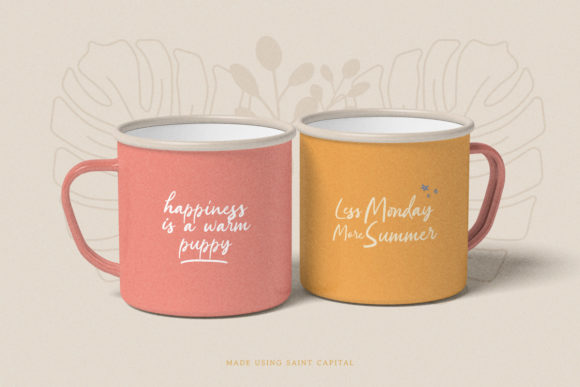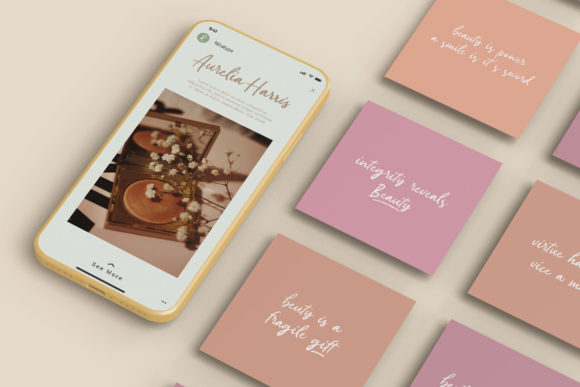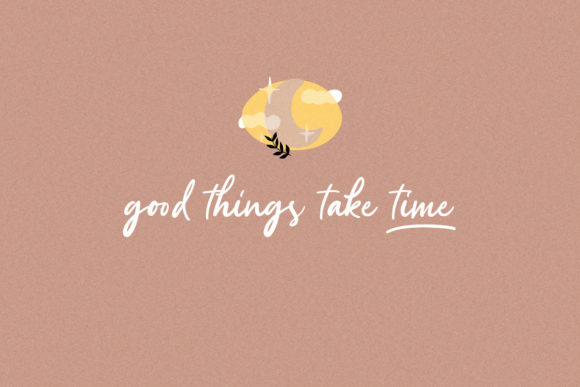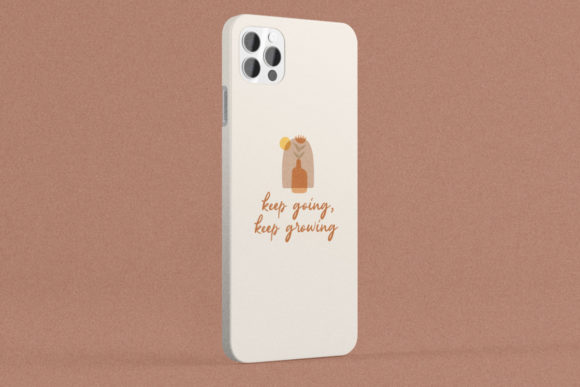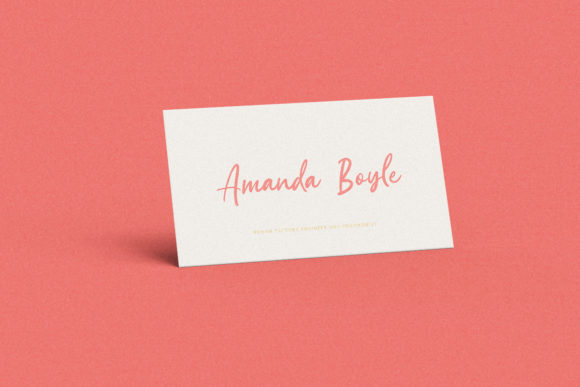
Introduction to Saint Capital Font
Have you ever been in the middle of a creative project, pouring your heart and soul into every detail, and suddenly, the perfect font appears to elevate your design? For designers, finding that one special font can be a game-changer. It’s like stumbling upon a hidden treasure that makes your work stand out from the crowd.
One such treasure is the Saint Capital Font, a lovely script font that features charming, playful characters that seem to dance along the baseline. Its high quality and unique design make it an excellent choice for any creative project, whether it’s a branding campaign or a social media post.
With its transparent background and beautiful letterforms, the Saint Capital Font is a valuable design resource that can add a personal touch to your work. And the best part? It’s available for free download, making it an accessible addition to any design project.
Key Features of Saint Capital Font
- High-quality design: Saint Capital Font is a premium font designed for creative projects, ensuring a professional and polished look.
- Transparent background: This font features a transparent background, making it ideal for use on any background or design element.
- Large character set: Saint Capital Font includes a large character set, including uppercase and lowercase letters, numbers, and punctuation marks.
- High-resolution design: This font is designed at a high resolution (300 DPI), making it suitable for use in large-scale designs and prints.
- Unique and stylish design: Saint Capital Font features a unique and stylish design, making it perfect for creative projects that require a distinctive look.
Honest Review: Saint Capital Font
I recently stumbled upon the Saint Capital Font, and I must say it’s a unique addition to any designer’s toolkit. This font is perfect for those high-quality, creative projects where a touch of sophistication is required.
- ✨ High-quality design: The Saint Capital Font is well-crafted, making it ideal for a wide range of applications.
- ✨ Transparent background: This feature allows for seamless integration with any design element, giving you complete control over your design.
While the Saint Capital Font is an excellent addition to any designer’s collection, there are a few limitations to consider:
- ⚠️ Limited character set: The font’s character set is somewhat limited, which may be a concern for those who need to use special characters or languages.
- ⚠️ Not ideal for small text: The font’s design may not be the best choice for small text, as the characters can become difficult to read.
Overall, I’m impressed with the Saint Capital Font’s versatility and high-quality design. While it may have some limitations, it’s an excellent choice for designers looking for a unique and sophisticated font to add to their collection.
Saint Capital Font is a versatile design resource that can be used in a variety of creative projects, including logos, branding materials, and social media graphics. Its high quality and transparent background make it an ideal choice for designers looking to create visually appealing and professional designs.